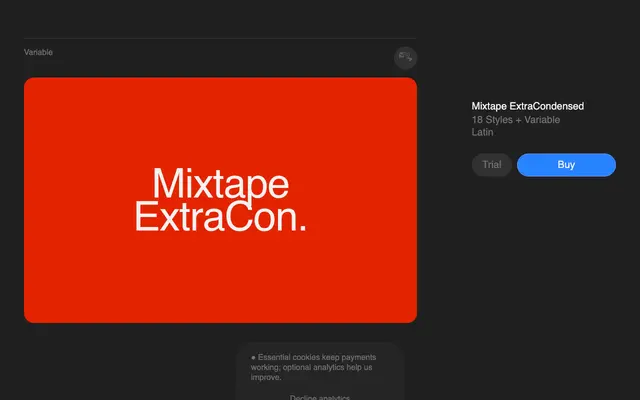
Mixtape ExtraCondensed
Superior Type · Rostislav Vaněk · 2008
A Bauhaus-rooted geometric sans in an extra-condensed cut, offered across nine weights with italics and a variable axis, covering 302 languages in Latin script.
Originating from a 2008 project by Rostislav Vaněk, this extra-condensed geometric sans draws on Bauhaus and avant-garde principles while distancing itself from direct Futura derivation. Eighteen static styles run from Thin to Black with matching italics, complemented by a variable font, and the family supports an unusually broad range of 302 Latin-script languages. OpenType features include oldstyle figures, fractions, superscripts, subscripts and a slashed zero, making it practical beyond display settings.
Rooted in Bauhaus and avant-garde principles with Futura as a historical reference, Mixtape ExtraCondensed is a geometric sans in an extra-condensed cut with 18 styles across nine weights.